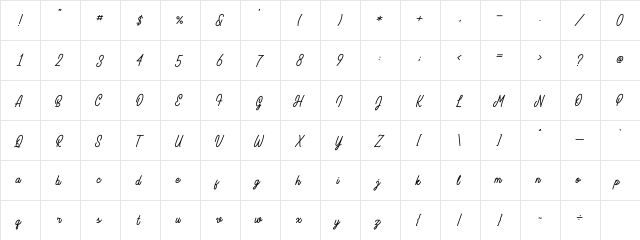
SmoothiesPERSONALUSEONLY Regular
Design Context for SmoothiesPERSONALUSEONLY Typeface
SmoothiesPERSONALUSEONLY is a composed and adaptable typeface that performs quietly and consistently across a wide range of design contexts.